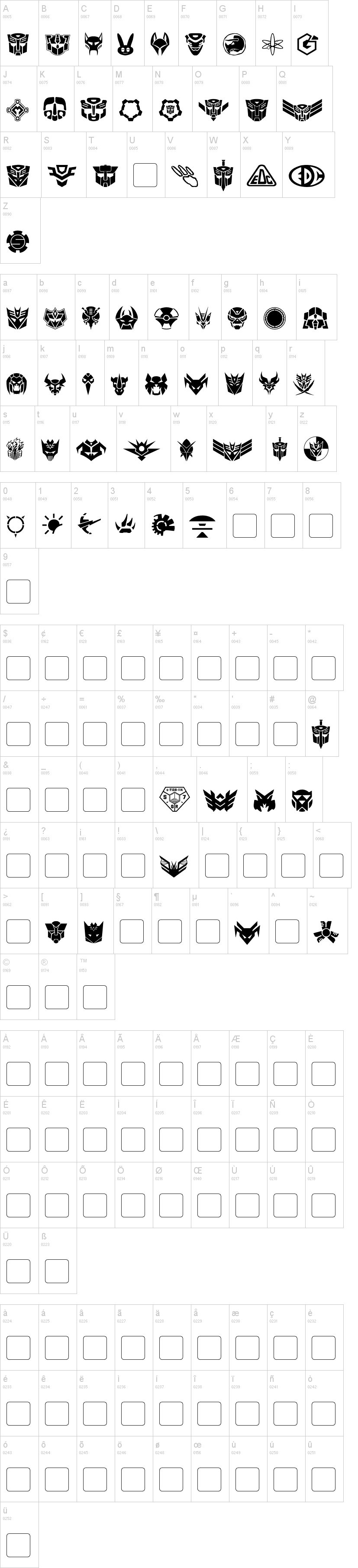
Note of the authorTransdings is dings collection of the various faction-symbols that have appeared throughout Hasbros massive Transformers franchise. Includes symbols ranging from the original Autobot and Decepticon symbols from the classic series, through Micheal Bays movie-verse. All symbols used with permission.